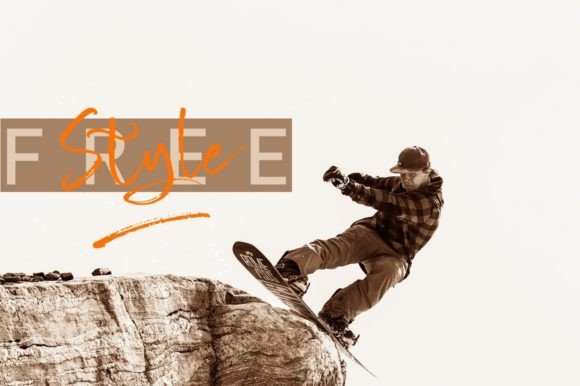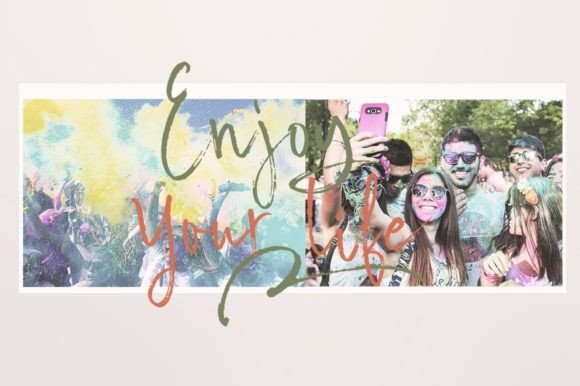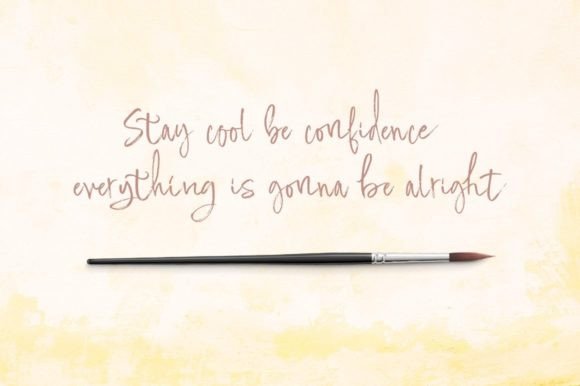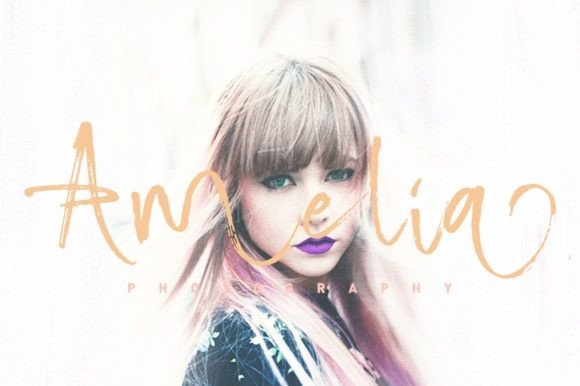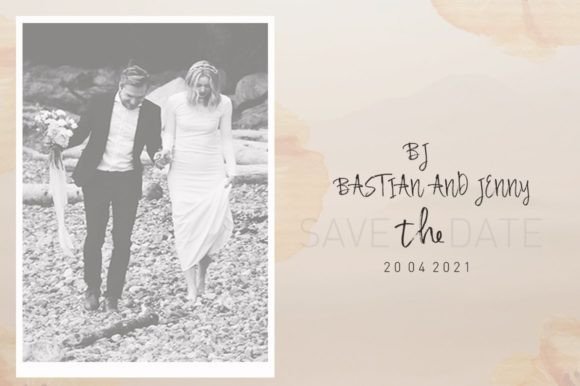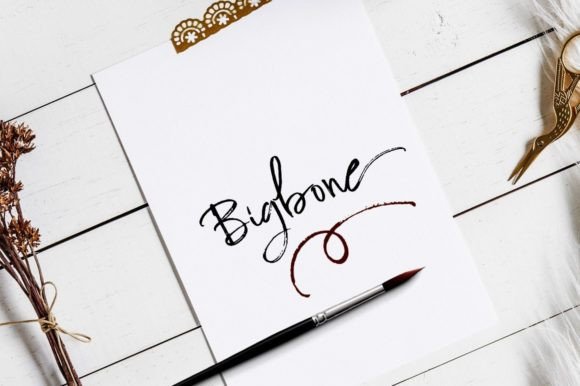
The Bigbone Font: A Modern Handwritten Brush Font to Elevate Your Designs
Have you ever been in the middle of a design project, and suddenly, you’re stuck on finding the perfect font? I recall a recent experience where I was working on a branding project for a trendy boutique, and I just couldn’t find a font that captured the essence of the brand. That’s when I stumbled upon the Bigbone font, a modern and interesting handwritten brush font that instantly became my go-to. In this article, I’ll share my honest review, a practical guide on how to use it, and some helpful tips and tricks.
My Honest Review of Bigbone Font
As a designer, I’m always on the lookout for fonts that can bring a unique touch to my projects. Here’s what I love about Bigbone:
• ✨ Unique and modern design: Bigbone has a fresh and contemporary feel that sets it apart from other handwritten fonts.
• ✅ High-quality and legible: The font is meticulously crafted, ensuring that it’s easy to read and understand, even at smaller sizes.
• 💫 Versatile and flexible: Bigbone comes with a range of OpenType features, glyphs, and stylistic alternates, making it perfect for various design applications.
While Bigbone is an excellent font, it’s not without its quirks:
• 🤔 Limited use in formal contexts: Bigbone’s casual and playful nature makes it less suitable for formal or corporate designs.
• ⚠️ Some characters may require adjustment: Depending on the design, you might need to tweak certain characters to achieve optimal spacing and alignment.
The Story Behind Bigbone Font
Bigbone was designed by a talented type designer who aimed to create a font that would bring a fresh perspective to handwritten fonts. Inspired by modern calligraphy and brush scripts, Bigbone was crafted to be both elegant and approachable. Although the designer’s story is fictional, it’s clear that their passion and dedication to typography resulted in a truly remarkable font.
What is Bigbone font best used for? Bigbone is versatile and can be used for a variety of designs, including branding, packaging, posters, and social media graphics.
Does Bigbone support OpenType features? Yes, Bigbone comes with a range of OpenType features, including stylistic alternates, glyphs, and ligatures.